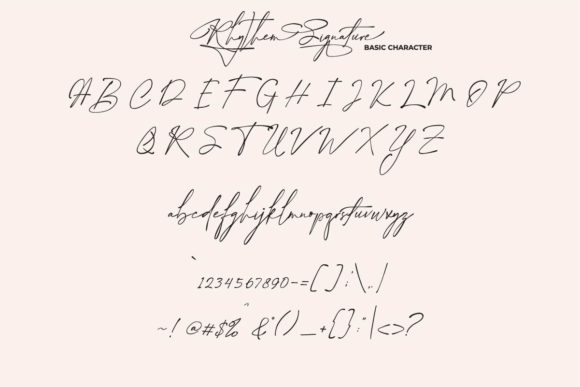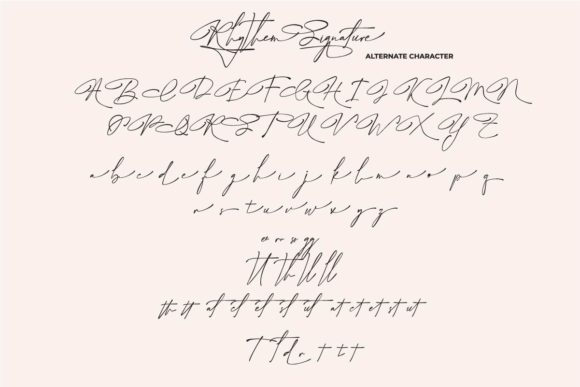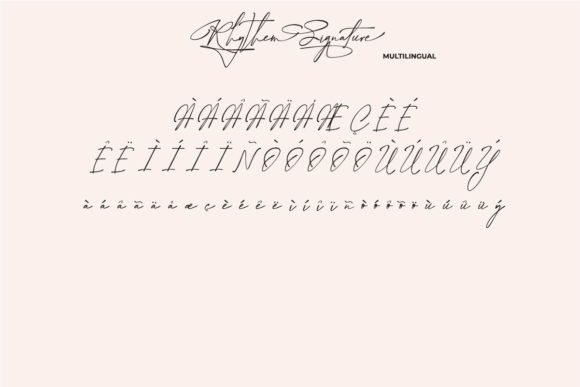
About Rhythem Signature Font
“Rhythem Signature” is a sophisticated and elegant script font that adds a touch of luxury and refinement to a wide range of design projects. Its beautiful strokes and professionally shaped characters make it a versatile choice that can easily enhance various creative endeavors.
Imagine using “Rhythem Signature” for a high-end brand’s logo. The font’s elegant and clean strokes create a sense of professionalism and sophistication, instantly elevating the brand’s identity. Whether it’s a fashion label, a luxury boutique, or a premium service, the font adds a sense of exclusivity and elegance to the logo design.
For product packaging, “Rhythem Signature” brings a touch of luxury and elegance to the design. The font’s beautiful and well-crafted characters enhance the overall aesthetics of the packaging, making the product stand out on the shelves. Whether it’s cosmetics, jewelry, or gourmet goods, the font’s refined appearance adds a sense of quality and sophistication.
“Rhythem Signature” is also perfect for wedding invitations. The font’s elegant and flowing strokes create a romantic and timeless feel, setting the tone for a sophisticated and memorable event. Whether the wedding theme is traditional or modern, the font adds a touch of class and elegance to the invitation design, impressing guests from the moment they receive it.
In branding projects, “Rhythem Signature” can be used to create a lasting and impactful visual identity. The font’s clean and elegant vibe makes it suitable for a variety of industries, from beauty and fashion to finance and real estate. Its professionally shaped characters convey a sense of trustworthiness and reliability, making it an ideal choice for businesses looking to establish a strong brand presence.
The font’s versatility extends to various other designs, such as editorial layouts, magazine covers, and event posters. Its elegant and clean appearance adds a touch of sophistication to the overall design, making it visually appealing and engaging for readers and viewers.
Whether it’s used for logos, packaging, invitations, or branding, “Rhythem Signature” exudes elegance and refinement. Its beautiful strokes and professionally shaped characters create a sense of luxury and sophistication, making it a valuable asset for any designer or creative professional. With its PUA encoding, accessing the font’s glyphs and swashes is effortless, allowing you to customize and enhance your designs with ease.